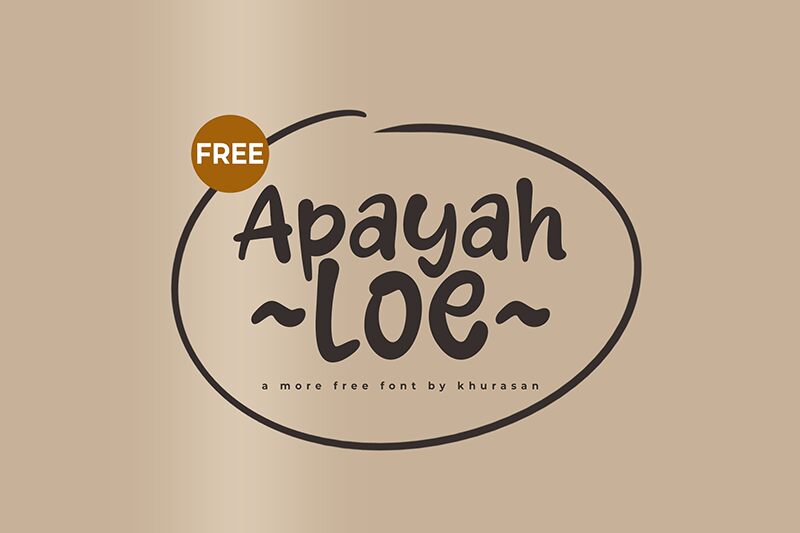
Apayah Loe
Apayah Loe font is a display typeface with cartoon-style elements brought to you by Khurasan. This free playful font has smooth flowing forms, a casual and contemporary look, and an overall organic appearance. It is fresh, modern, and humanistic with handwritings that enliven any text they could convert.
The all-caps applies to posters including movie titles for children, video games designs, social media posts (Facebook covers/Instagram stories), printed presentations like magazines or brochures. Its use can extend even more in personalization projects which include typography design where each new character adds life into section you’re working on about icons creation adding unique symbols thorough effort involved final results!